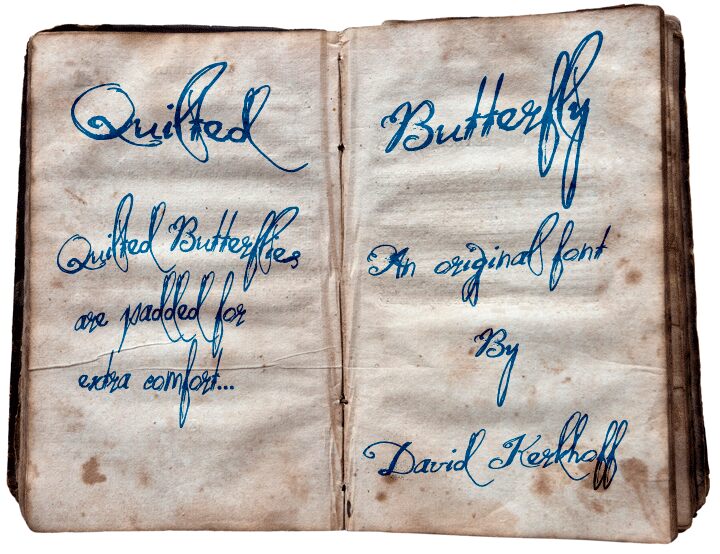
DK Quilted Butterfly
DK Quilted Butterfly, designed by David Kerkhoff, is a font that exudes elegance with its calligraphy style and semi-light weight. The graceful sweeps and curves of each letter are reminiscent of the gentle fluttering of a butterfly's wings. This typeface captures the essence of handwritten artistry, bringing a personal touch to any project.
The aesthetic appeal of DK Quilted Butterfly lies in its blend of classic calligraphy with modern sensibilities, making it an excellent choice for invitations, branding, and editorial work where a touch of sophistication is desired. The semi-light weight adds a delicate airiness to the script that enhances its versatility without sacrificing readability.
DK Quilted Butterfly's stylish character and artistic flair make it an ideal candidate for designers seeking to impart an aura of creativity and charm in their projects. Whether it's to elevate the style of wedding stationery or to add personality to boutique marketing materials, this font stands out as both beautiful and functional in its application.